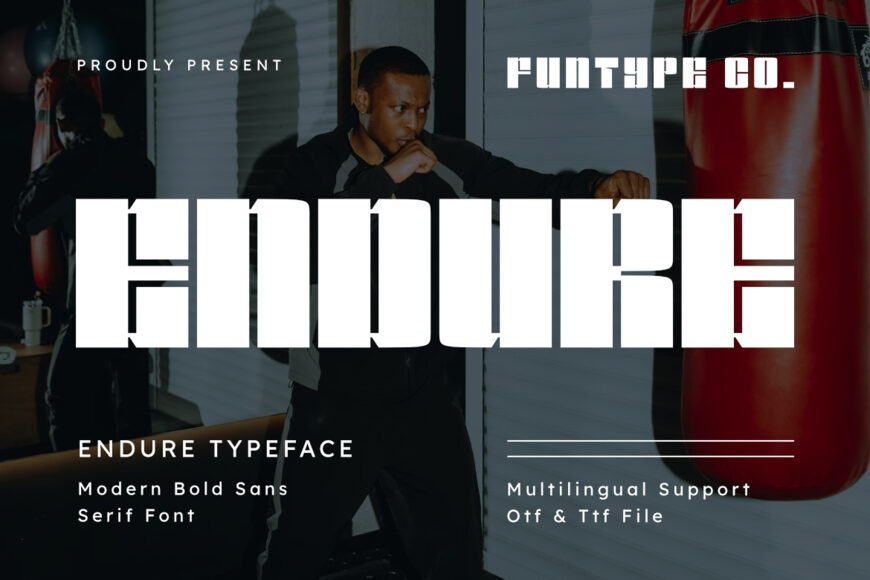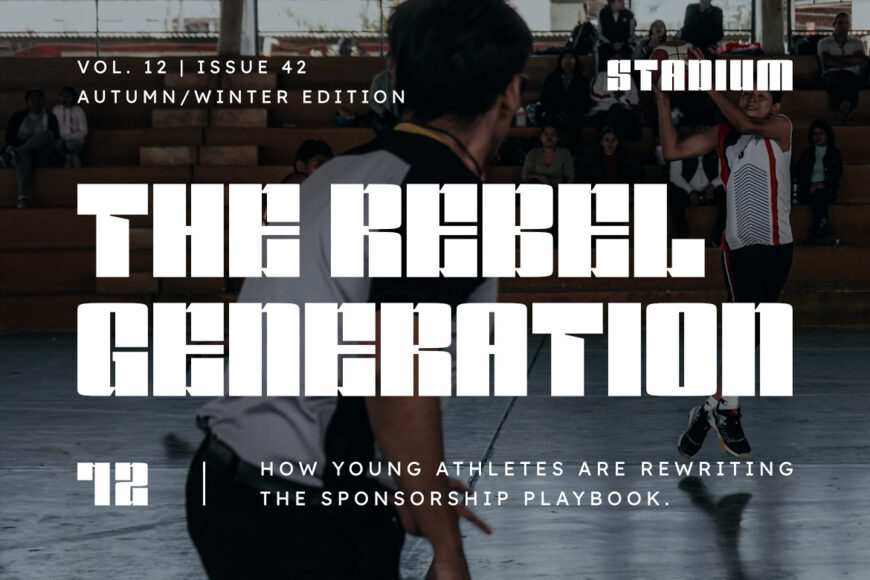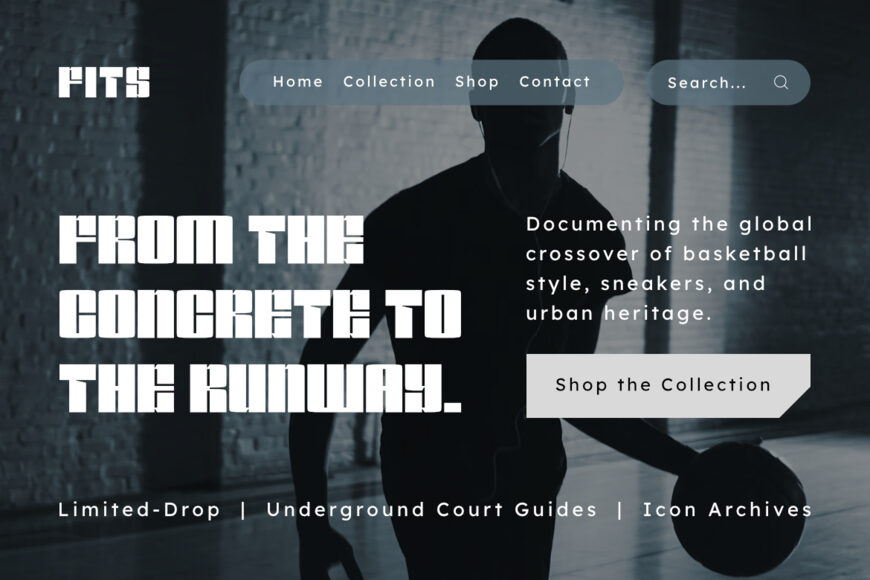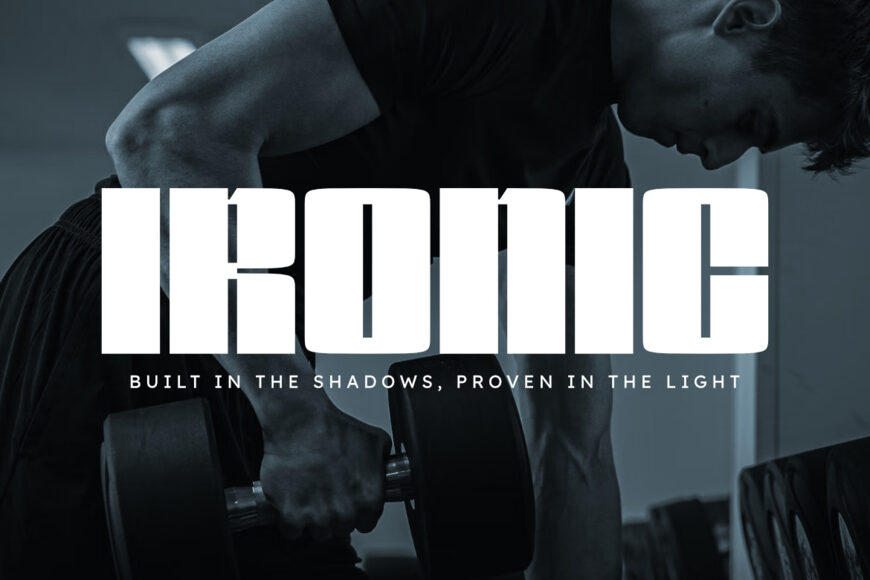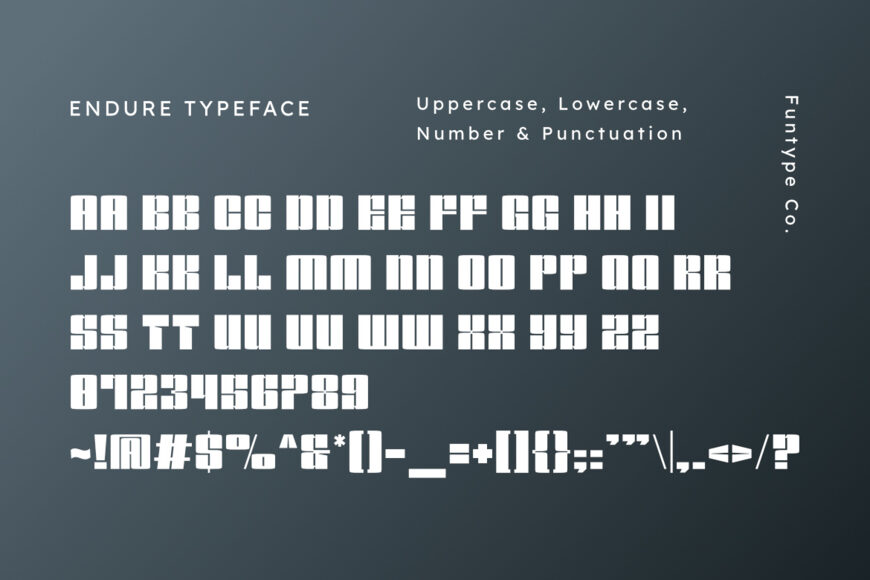
Endure is a heavy, bold, and beautifully stylized modern sans serif font tailored for precise, high-impact branding and commercial craft design.
Showcasing a solid geometric block structure, heavy weights, and clean linear silhouettes with aggressive sharp notch accents, this typeface is exceptionally qualified for commanding headlines, high-end urban streetwear clothing lines, athletic sports jerseys, custom vinyl decals, activewear branding, and bold promotional posters.